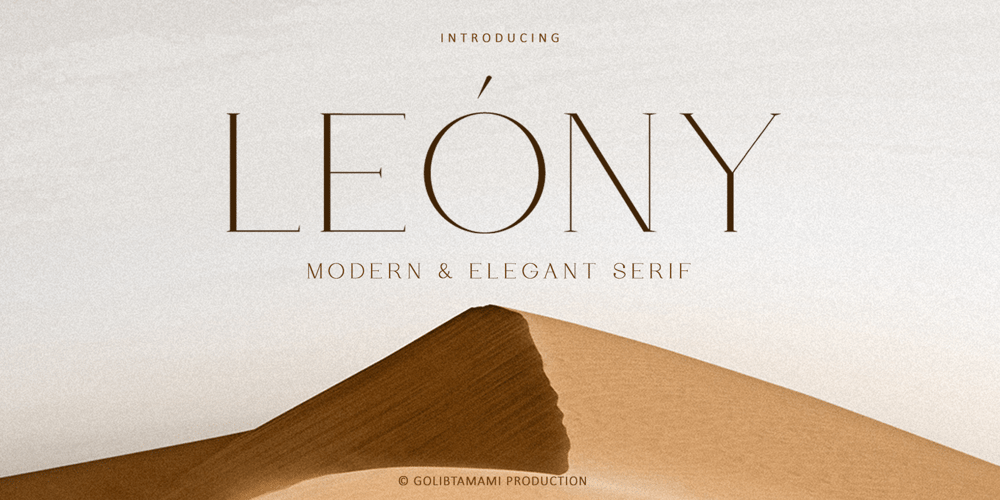
Leony Font Family was designed by Gholib Tammami and published by Gholib Tammami. Leony contains 1 styles and family package options. Leony – Elegant Serif Fashion font by golibtamamiintroducing our new “Leony” Modern with Elegant Style this is perfect for branding, logos, invitation, master-heads and more.Leony Features :Multi languageIf you have any questions, before or after purchase, please feel free to get in touch.Thank you